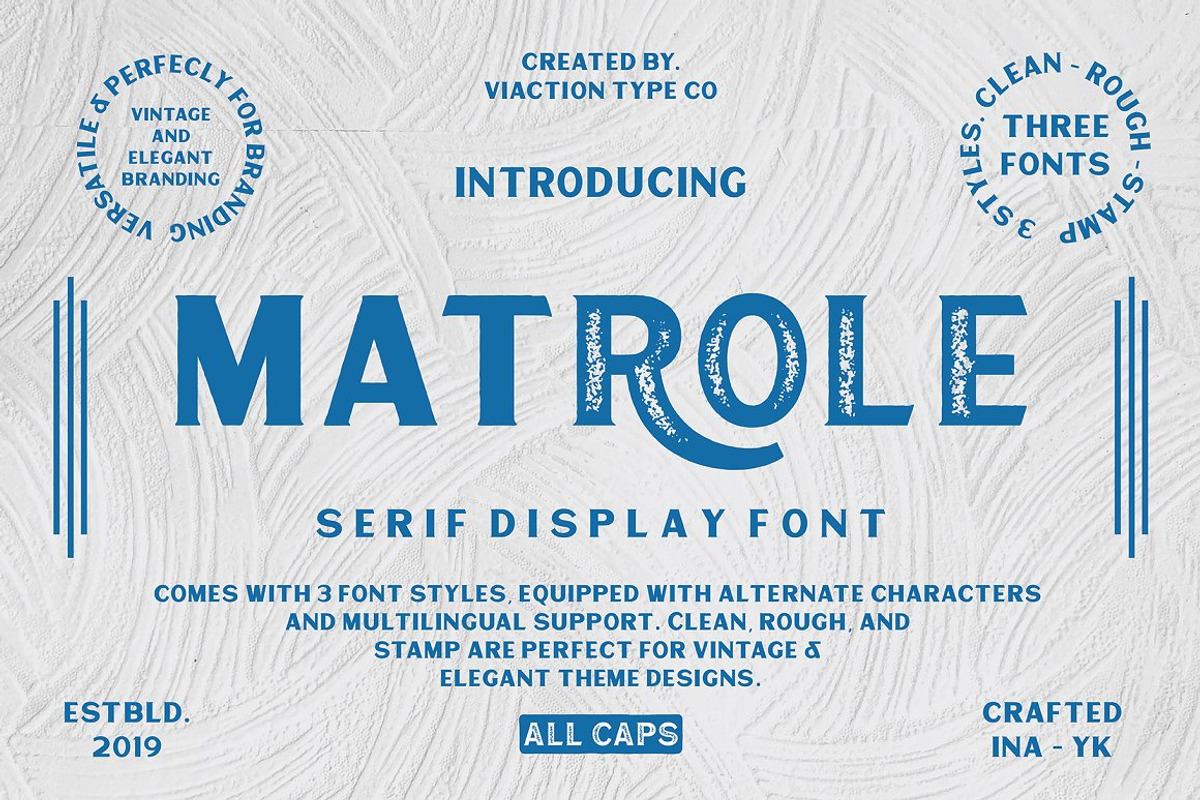
VT Matrole - Vintage Serif Free Download
VT Matrole - Vintage Serif Font Free Download
Step back in time with a font that oozes vintage charm and classic style. VT Matrole - Vintage Serif Font Free Download is the perfect choice for designers looking to add a nostalgic flair to their projects. With its bold serifs, old-school aesthetics, and timeless elegance, this font is ideal for retro branding, posters, packaging, and editorial designs.
The font offers a full range of uppercase and lowercase letters, numerals, and punctuation, along with stylistic alternates that enhance its visual appeal. Whether you’re working on a coffee label, a music festival flyer, or a throwback logo, VT Matrole adds a touch of authenticity and character.